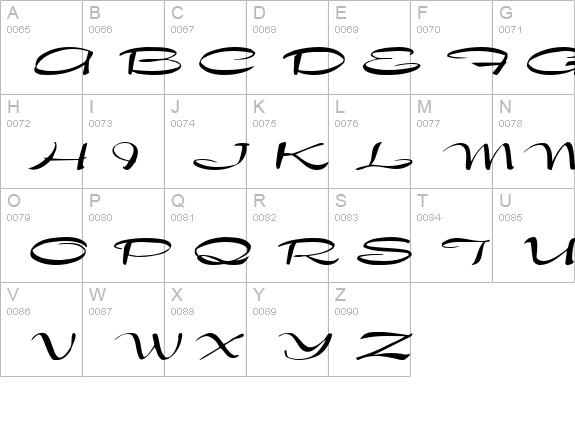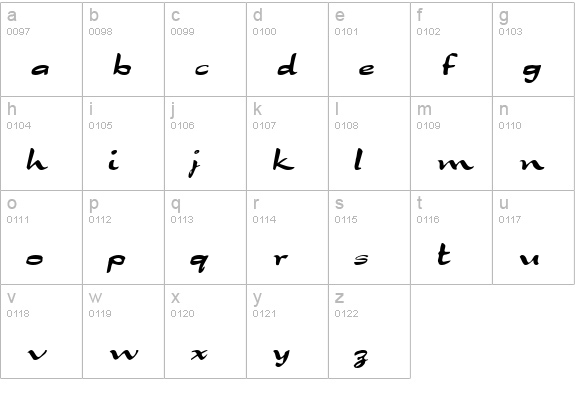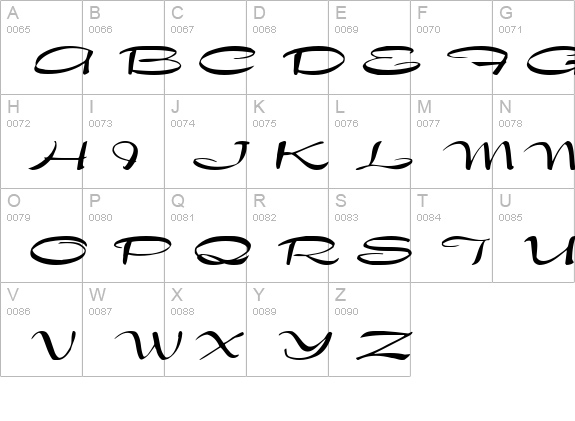
Dragonwyck Italic is a distinctive, italic variant in the Dragonwyck typeface family \xE2\x80\x94 well suited to design and typography projects.
Dragonwyck Italic font is a stylish and elegant typeface that exudes sophistication and charm. With its unique italicized design, this font adds a touch of flair to any project, whether it's for invitations, branding, or editorial design. The sleek and flowing lines of Dragonwyck Italic give it a timeless and classic appeal that is sure to impress. And the best part? Dragonwyck Italic font is available for free download at FontsMarket.com. This means you can easily access this stunning typeface and use it in your projects without any cost. Don't miss the opportunity to add a touch of luxury to your designs with Dragonwyck Italic font, now available for free at FontsMarket.com.